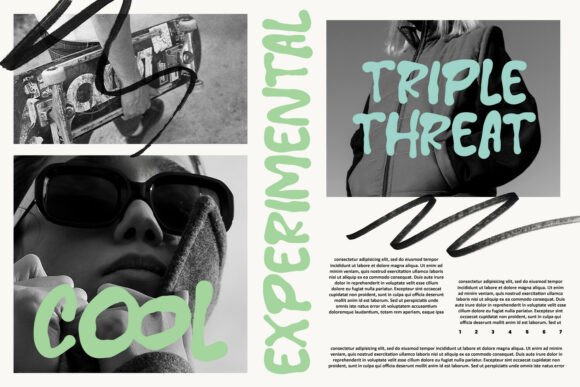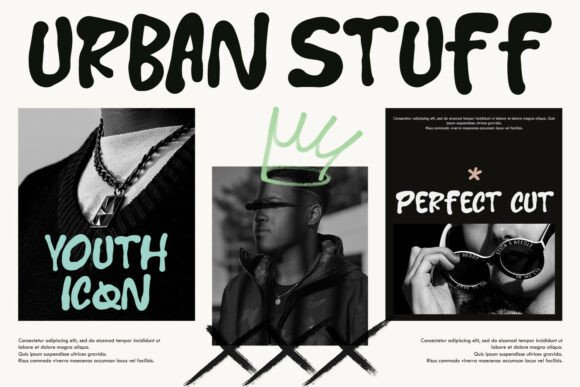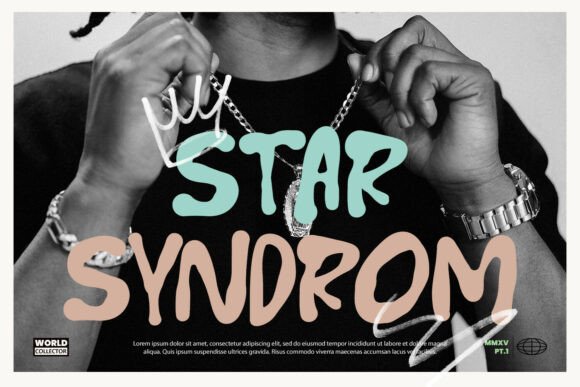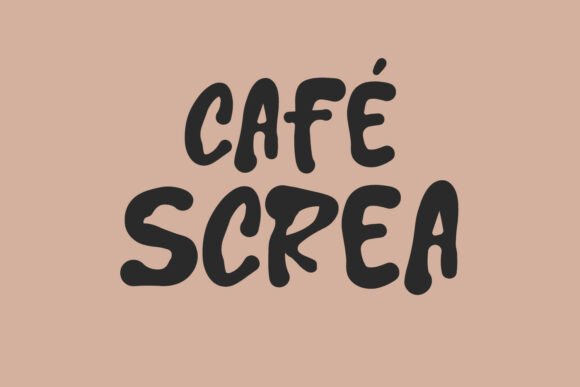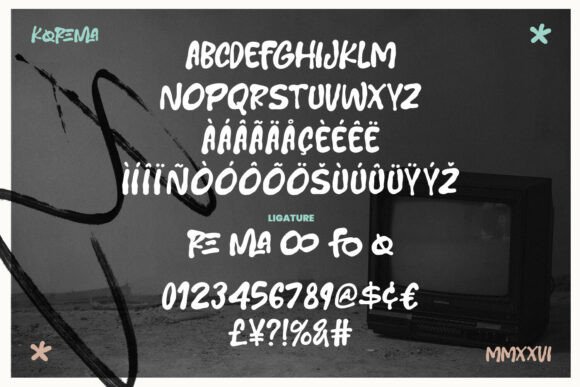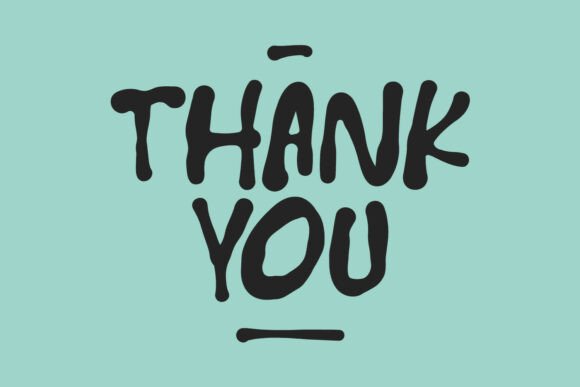
Introduction to Korema Font
Korema is a striking display font that blends raw, organic energy with a modern urban tribal aesthetic.
Characterized by its heavy, hand-drawn strokes and unique experimental ligatures, this font captures an authentic, street-style vibe Its bold and slightly irregular letterforms make it perfect for standout branding, edgy posters, and creative editorial layouts.
Key Features of Korema Font
Why Choose Korema Font?